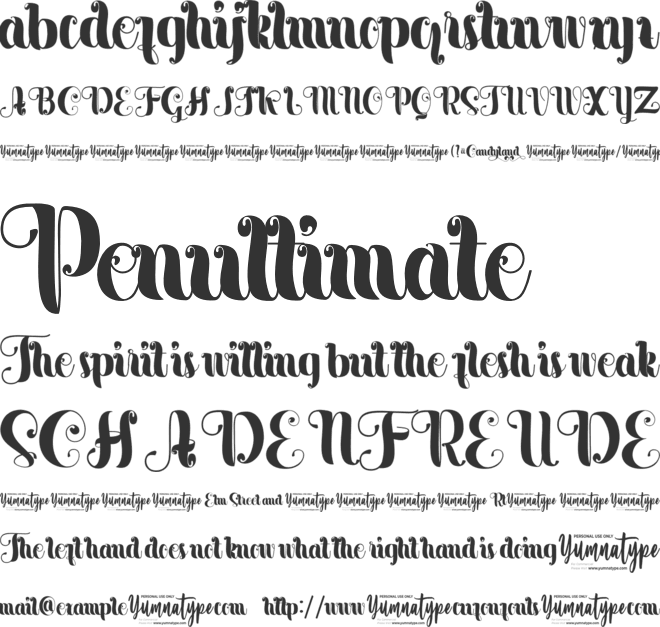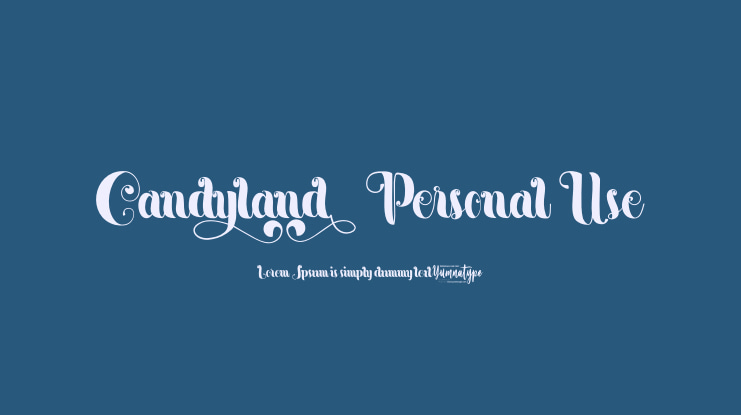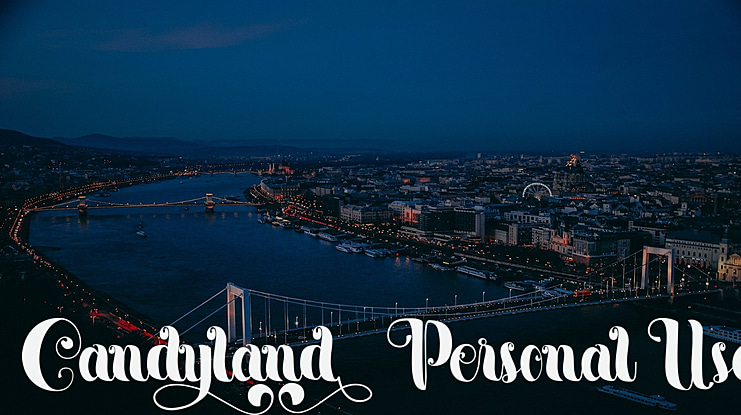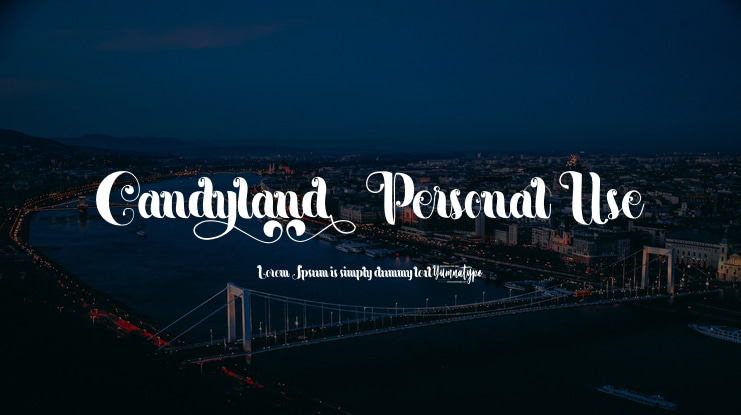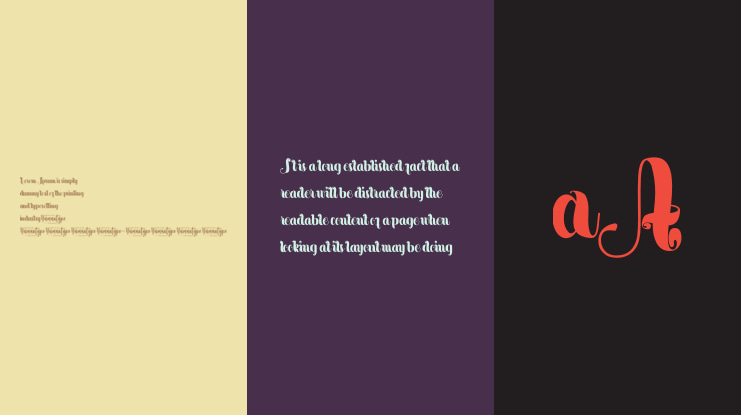
Introducing Candyland- A Sweet Handwritten Font
Candyland is designed and carefully handcrafted elegantly and gracefully to embrace your project. This font will never go wrong for your audience, clients, guests or anyone around you! Use it for headings, logos, business cards, printed quotes, invitations of all sorts, cards, packaging, and your website or social media branding.